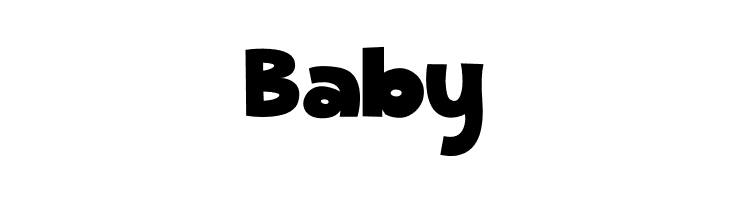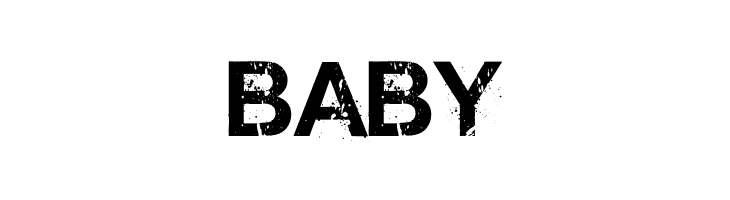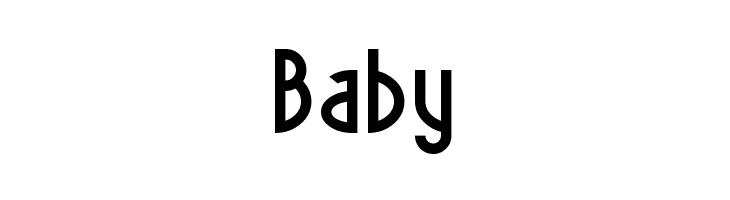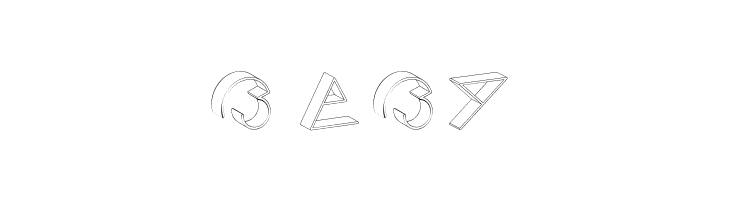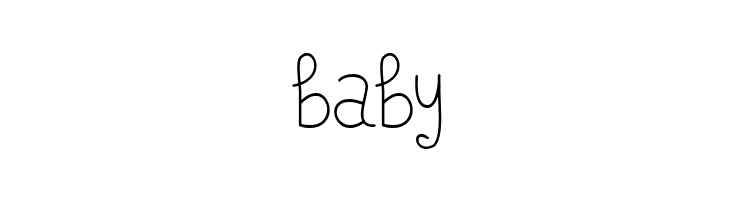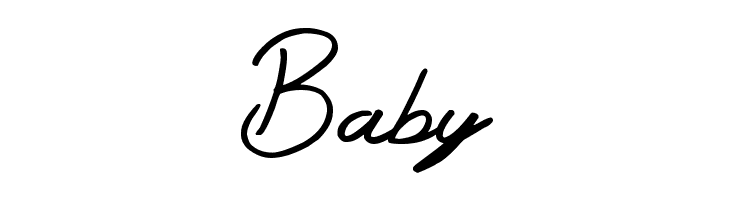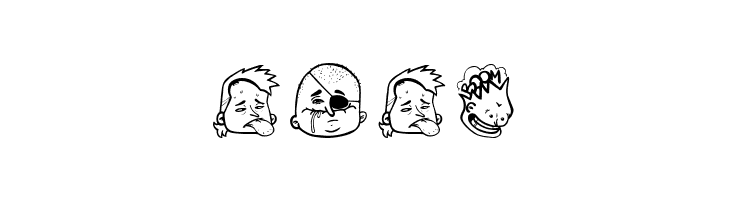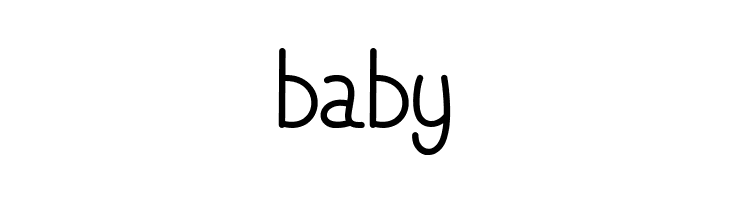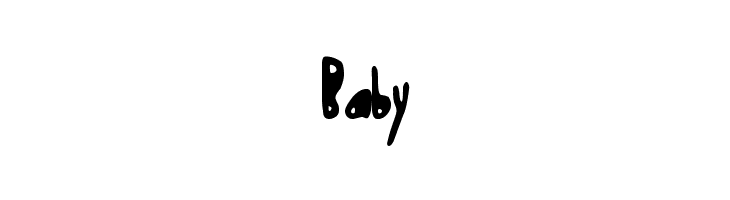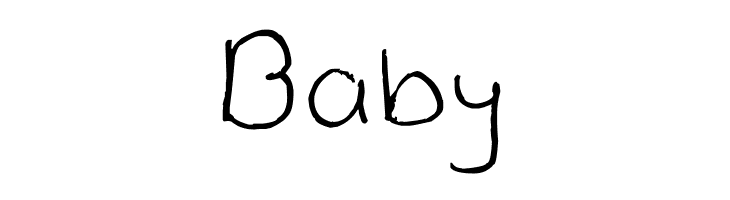
A playful, casual handwritten font with irregular strokes and a personal touch.
A bold, modern font with geometric influences, perfect for impactful headlines.
A bold, textured font with a cracked, distressed appearance.
A bold, geometric font with a modern yet retro feel, perfect for headlines and logos.
A bold, distressed font with a gritty, weathered texture.
A dynamic, calligraphic font with elongated, whimsical letterforms.
A whimsical and dynamic font with elongated, slightly curved strokes.
A playful, hand-drawn font with quirky, irregular letterforms.
A playful, hand-drawn font with bold, exaggerated curves and a whimsical style.
A classic serif font with elegant and refined letterforms, perfect for formal use.
Cartoonish, hand-drawn font with each character as a unique illustrated face.
Cartoonish, expressive font made of illustrated faces.
A playful, bold font with chunky, rounded letters and a hand-drawn feel.
A bold, geometric font with art deco influences, featuring sharp, angular letterforms.
A bold, geometric font with art deco influences, ideal for striking designs.
A bold, italicized font with a dynamic and energetic style.
A bold, italic font with a modern, dynamic style and clean lines.
A playful and eclectic collection of bold, whimsical symbols with a street art vibe.
A fluid, cursive script font with a natural handwritten style.
A modern, minimalist font with thin, uniform strokes and balanced spacing.
A decorative font with a cross-stitch pattern, ideal for creative projects.
A playful, handwritten font with irregular strokes and a casual style.
A clean, modern font with balanced spacing and clear characters.
A clean, modern font with uniform stroke width and balanced spacing.
A clean, thin-stroked font with a modern and minimalistic design.
A playful, rounded font with smooth curves and a friendly appearance.
A modern, rounded sans-serif font with a clean and friendly style.